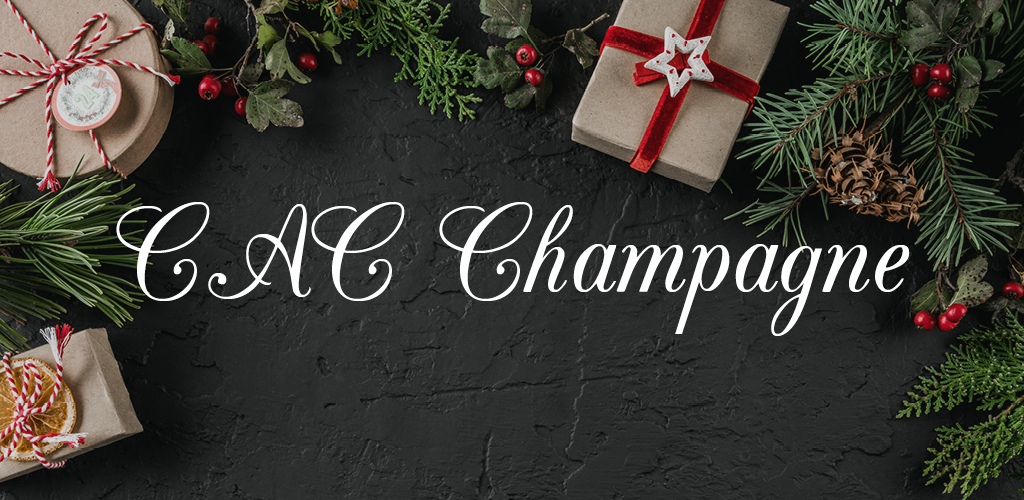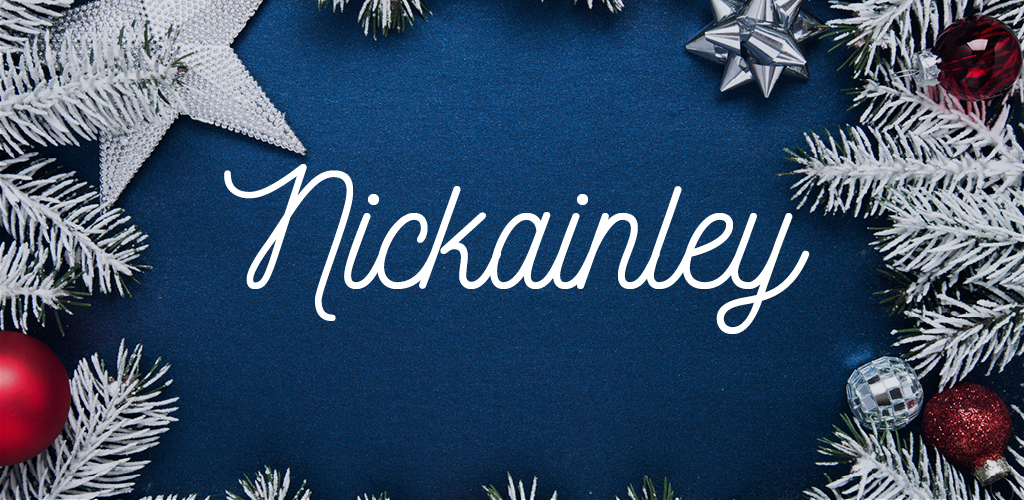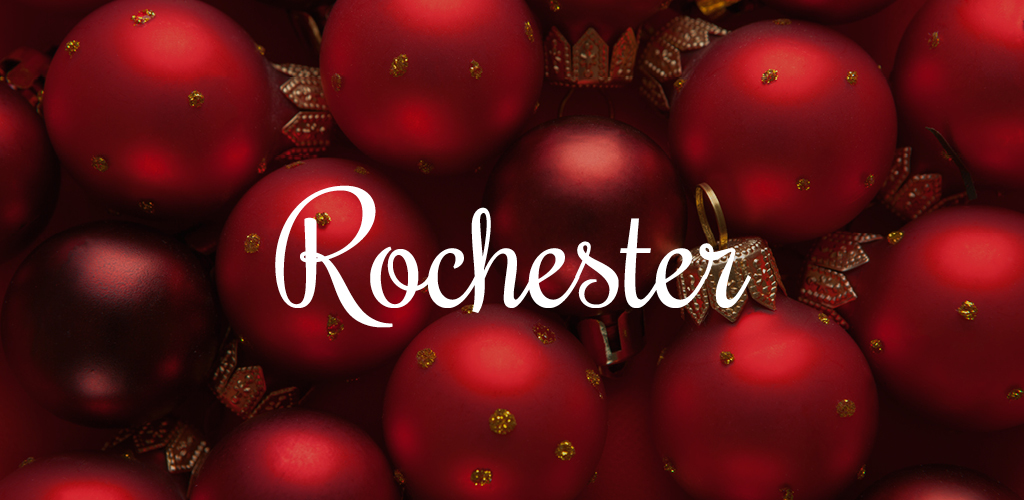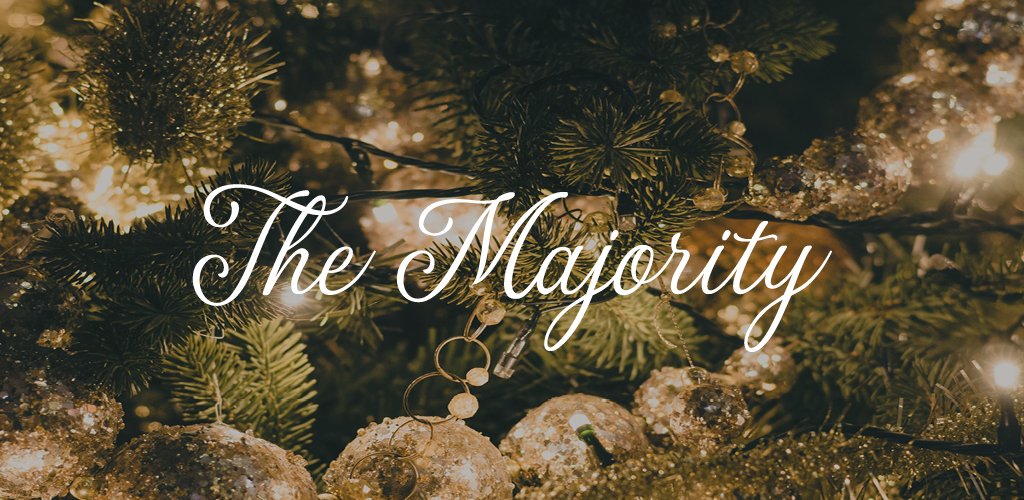
We picked the very best free fonts for Christmas and the Holiday season. Use these free Christmas fonts in cards, newsletters, and more.
As the holiday season comes closer, you may feel rushed to find the perfect free Christmas fonts for a special event or a holiday card. It’s not easy to browse through the endless choices and find the best free font for you. Do you use a snowy display font, or do you stick to a luxurious script font? To help narrow down your choices, we’ve compiled this list of twenty-five of the best free festive fonts that are perfect for any seasonal need. Not enough for you? We also curated 20 more free Christmas fonts that work for virtually any holiday design.
Why You Should Use Christmas Fonts
There are a lot of fonts out there that you could use on your Christmas cards, gift tags, or branded marketing materials. But why pick any old font when you can have one tailored to the holiday season? Christmas fonts are a great creative tool because they match the festive mood of the holiday season. From beautiful cursive scripts with an old-fashioned feel to down-to-earth handwriting fonts, this set of free Christmas fonts is everything you need to spread warmth and cheer.
How to Use Christmas Fonts
Christmas fonts come in four major categories: elegant scripts, serifs, sans serifs, and cute fonts with a more stylistic flair. It’s important to choose a font that matches both the subject and tone of your message. A Christmas wedding invite will lose elegance if you pick a casual handwriting font. On the flipside, a more personalized message written in an elegant flowing script might feel inauthentic and lose some of its charm.
Use the elegant, professional fonts can anywhere since they’re quite poised. Script fonts are great for greeting cards, gift signatures, and holiday-themed event invitations. The big serifs, like Cinzel, are good for seasonal branding work like headlines on banners and homepage takeovers. The sans-serifs are great for more down-to-earth seasonal projects, like a series of posts for social media.
The cute fonts are a bit wackier, so we recommend saving them for DIY projects and personalized notes. These casual styles work well on a homemade Christmas card from the heart, or a holiday newsletter for your friends and family. There’s just one rule when you’re using fonts with stylized characters and playful shapes — don’t use them in big, chunky paragraphs of text. Save these for headlines and short phrases and your viewers will thank you!
Cursive Fonts
1. CAC Champagne
Give your holiday cards some pizzazz with this classic font. CAC Champagne, an effortless script designed by American Greetings Corporation, creates an air of elegance with its exquisite swashes and slightly angled structure. This font’s calligraphic style and well-spaced letterforms ensure legibility at the smallest of sizes.
2. Nickainley
Nickainley, a monoline script font designed by Seniors Studio, adds the perfect whimsical touch to holiday cards and is versatile for use in other design applications. Try it with a candy cane themed color scheme in bright red and stark white.
3. Rochester
Rochester, designed by Sideshow, effectively marries loopy calligraphic letterforms with Victorian styles to make the perfect classy font. Its smooth weight variations and whimsical look creates a style that is both formal and nonchalant.
4. Pinyon Script
Pinyon Script, designed by Nicole Fally, features curved swashes and angled letterforms with a truly elegant demeanor. Use this classic script font for exquisite party invites and formal holiday cards.
5. The Majority
Give your Christmas card a sense of luxury with this gorgeous script font from Letterhend Studio. Its flowy nature pairs beautifully with a detailed fir tree background.